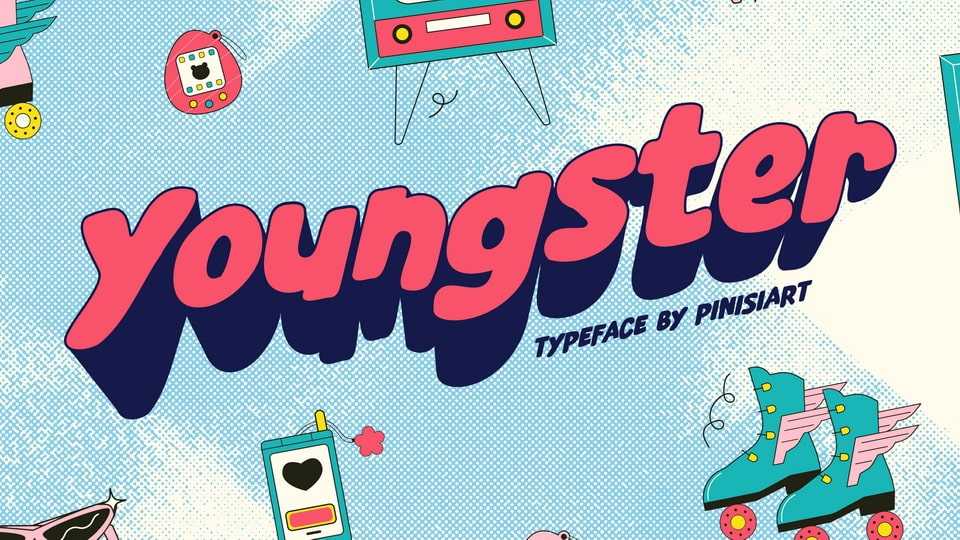
Download Youngster font, a fun display typeface. A teenager is a phase that is full of energy. Fun, party, and joy every step of the way, that’s why Youngster is a got font to such a world.